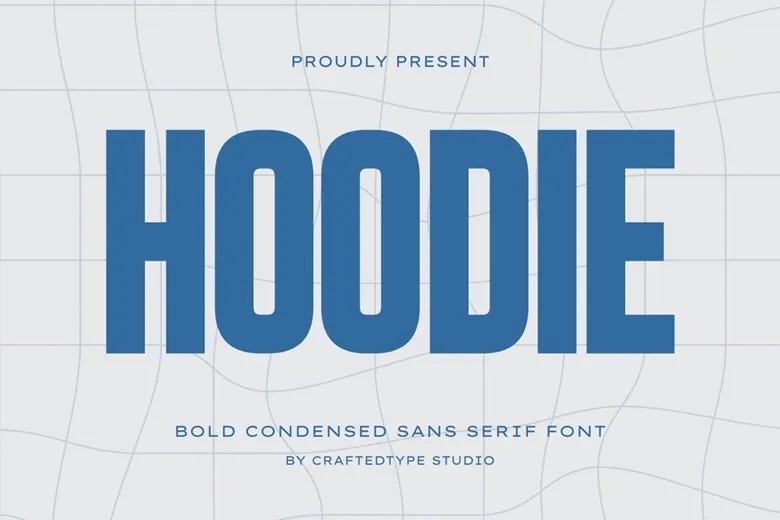
Hoodie Font
The Hoodie Font is an aggressive, dominating bold condensed sans serif, carefully designed to achieve high impact graphics and street style appearance. It has tall and compact type forms and solid thick strokes, which is why this font is the last resort of the creators who wish to achieve a powerful, industrial, or sportive appearance. HOODIE suits the Print On Demand (POD) projects like streetwear clothing, sports Jersey, hoodies, and gym wear.
Its clean and still aggressive appearance also makes it suitable in bold headlines, film titles, modern day branding, and graphics in social media that require immediate attention. Both when creating a professional sports team and a fashionable line, HOODIE offers a professional and dynamic advantage.
Hoodie Sans Serif Font